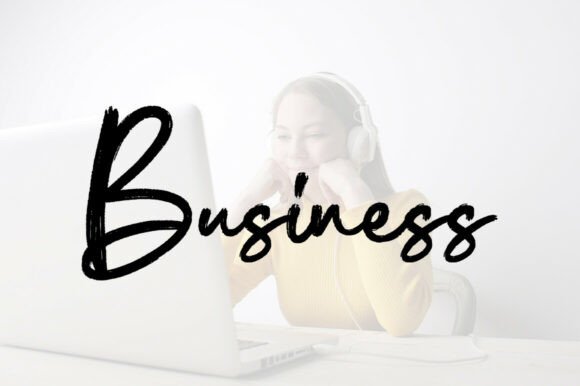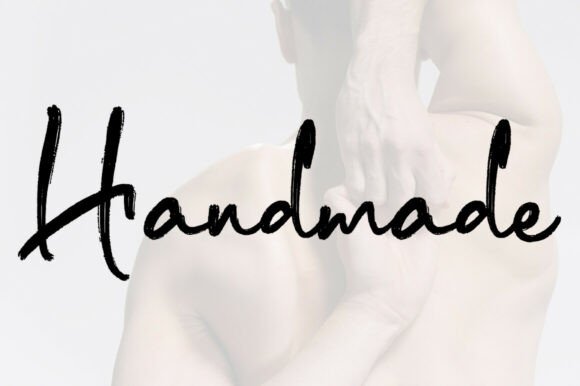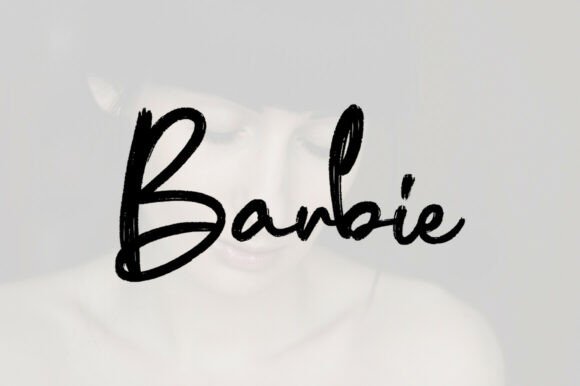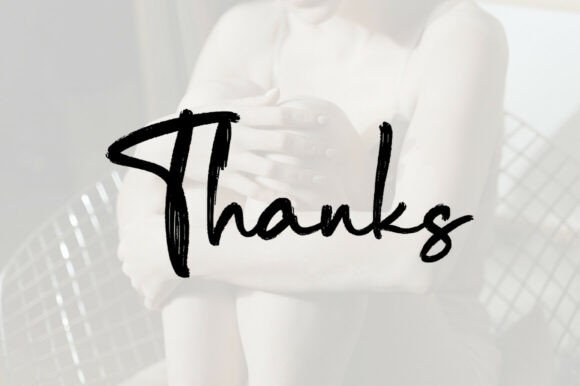
Introducing Children Font: The Perfect Addition to Your Design Arsenal
Are you a designer or crafter looking for a font that can add a touch of romance and personality to your designs? Look no further than Children Font, a beautiful and elegant handwritten font that’s perfect for a variety of creative projects.
What is Children Font?
Children Font is a dainty and flowing handwritten font that’s designed to bring a sense of joy and sweetness to your designs. With its delicate and cursive lines, this font is ideal for creating romantic and personalized designs that will capture the hearts of your audience.
Characteristics of Children Font
So, what makes Children Font so special? Here are some of its key characteristics:
- Handwritten style: Children Font is a handwritten font that’s designed to look like it was written with love and care. Its flowing lines and delicate curves give it a personal and intimate feel that’s perfect for designs that require a human touch.
- Sweet and joyful: This font is designed to evoke feelings of happiness and joy. Its sweet and playful style makes it perfect for designs that require a lighthearted and romantic touch.
- Romantic and personalized: Children Font is ideal for designs that require a romantic and personalized touch. Whether you’re creating wedding invitations, love letters, or personalized gifts, this font is sure to impress.
Use Cases for Children Font
So, what can you use Children Font for? Here are some ideas to get you started:
- Wedding invitations: Children Font is perfect for creating beautiful and romantic wedding invitations that will set the tone for your special day.
- Cards and stationery: This font is ideal for creating personalized cards and stationery that will make your loved ones feel special.
- Branding and packaging: Children Font can also be used for branding and packaging designs that require a touch of elegance and sophistication.
- Digital designs: This font can be used for a variety of digital designs, including social media graphics, blog posts, and email newsletters.
Why Choose Children Font?
So, why should you choose Children Font for your design projects? Here are some reasons to consider:
- Unique and elegant: Children Font is a unique and elegant font that’s sure to stand out from the crowd.
- Easy to read: This font is designed to be easy to read, even at small sizes.
- Versatile: Children Font can be used for a variety of design projects, from wedding invitations to digital designs.
- High-quality: This font is of high quality, with delicate and flowing lines that will impress your audience.
Tips for Using Children Font
Here are some tips for using Children Font in your design projects:
- Use it sparingly: Children Font is a beautiful font, but it can be overwhelming if used too much. Use it sparingly to add a touch of elegance and sophistication to your designs.
- Pair it with other fonts: This font can be paired with other fonts to create a unique and interesting design.
- Experiment with colors: Children Font looks great in a variety of colors, so don’t be afraid to experiment and find the perfect color for your design.
Children Font is a beautiful and elegant handwritten font that’s perfect for designers and crafters who want to add a touch of romance and personality to their designs. With its delicate and flowing lines, this font is ideal for creating romantic and personalized designs that will capture the hearts of your audience. So why not give it a try and see how it can elevate your designs to the next level?